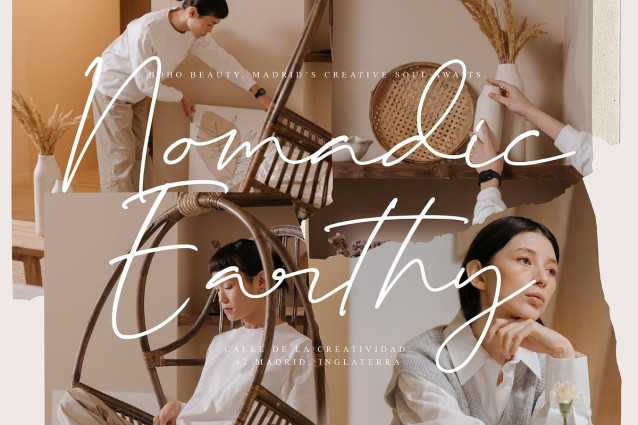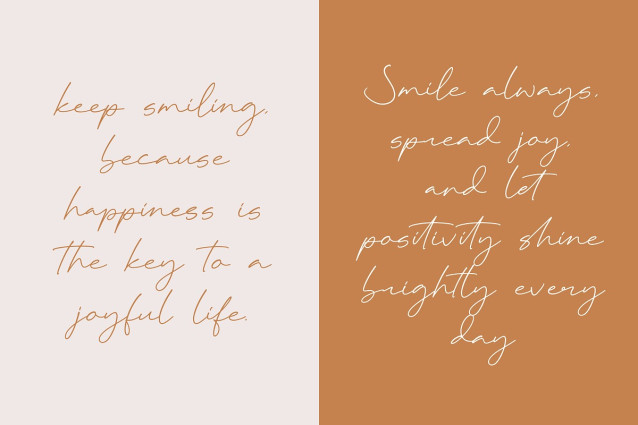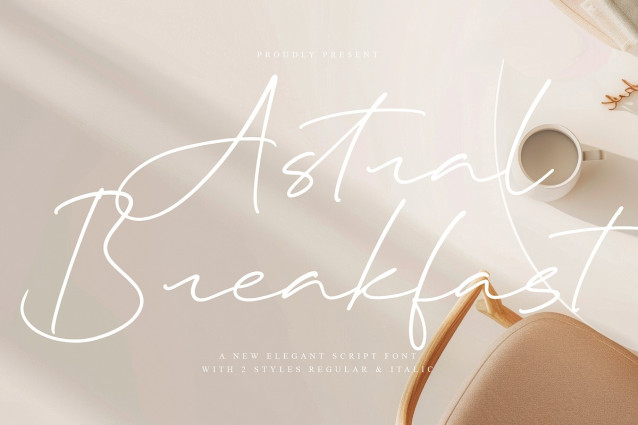
Astral Breakfast Font
Astral Breakfast Font – A New Elegant Script Font, from Operatype, perfect for any project like: logos, branding projects, homewares designs, product packaging, mugs, quotes, posters, shopping bags, t-shirts, covers books, business cards, invitation cards, greeting cards, labels, photography, watermarks, special events and all your other luxury projects that require a premium taste.